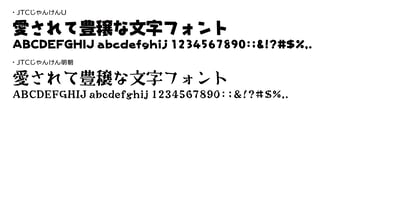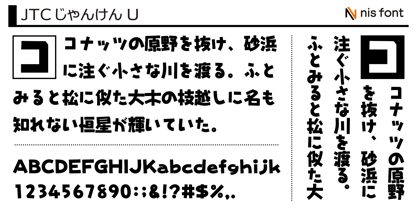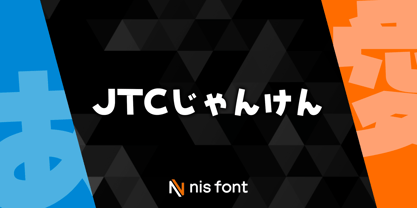
OT-NIS_JYA
The OT-NIS_JYA Font Family was designed by and published by NIS Fonts. OT-NIS_JYA contains 2 styles and family package options. More about this family
This is one of the popular typefaces from Nis Fonts, widely used in various contexts. It conveys a cheerful, fun, natural, and rustic impression. Note: This typeface supports the JIS2004 character set.